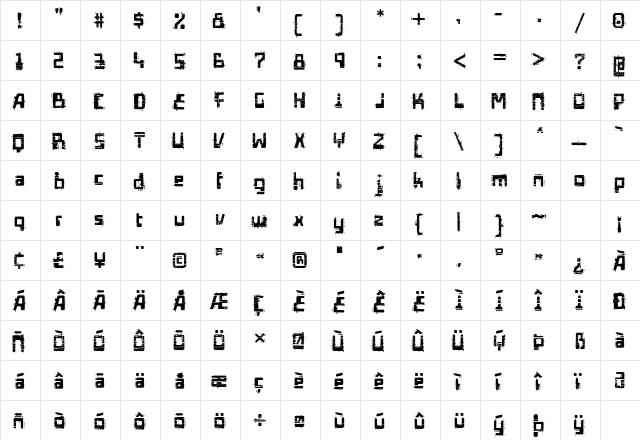
Edifact Regular
Design Context for Edifact Typeface
Edifact is a composed and adaptable typeface that performs quietly and consistently across a wide range of design contexts.